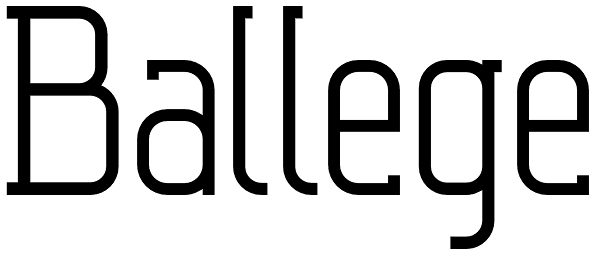
Ballege
The Ballege typeface is a Slab Serif inspired by College sports and ball games. I started working on it after watching the film 'MoneyBall', Directed by Bennet Miller. It's inspired by College sports and ball games. This typeface features more than...